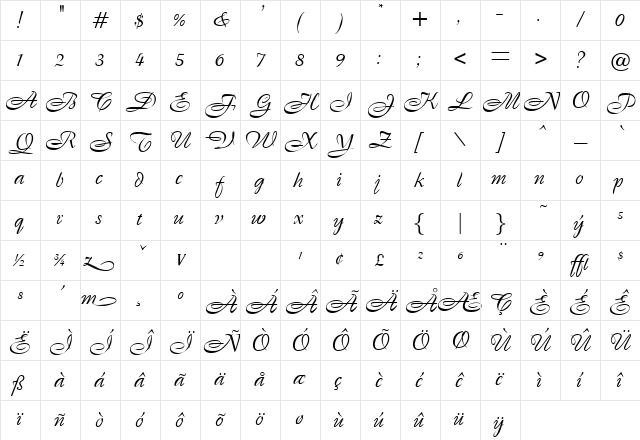
BertholdBoulevard Regular
Design Context for BertholdBoulevard
BertholdBoulevard is a composed and adaptable typeface that performs quietly and consistently across a wide range of design contexts.